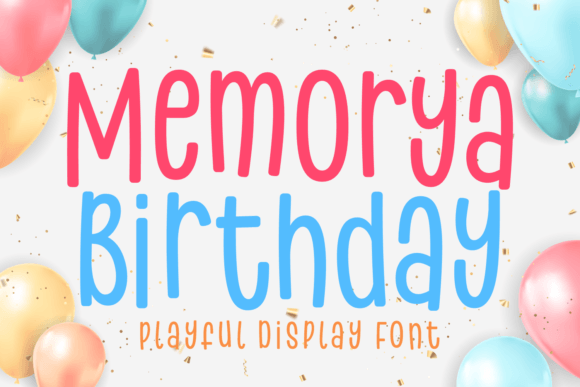
**Memorya Birthday Font: Capture the Joyous Spirit of Celebration**
Immerse yourself in the whimsical world of Memorya Birthday, a captivating display font that exudes warmth, playfulness, and an irresistible charm. This enchanting typeface, meticulously crafted by the talented Rizkky of 7NTypes, is a masterpiece of creativity, designed to infuse your projects with a touch of lighthearted delight.
With every stroke of Memorya Birthday, you'll evoke the vibrant spirit of a birthday celebration. Its bold and playful curves dance across the page, creating a visual symphony that sparks joy in the hearts of all who behold it. Whether you're designing invitations, greeting cards, social media posts, or any other project that calls for a touch of whimsy, Memorya Birthday is the perfect choice to convey your message with an infectious smile.
But beyond its playful exterior, Memorya Birthday is a versatile font that lends itself to a diverse range of design styles. Its adaptability shines through whether you're crafting elegant branding materials, creating eye-catching posters, or adding a touch of whimsy to your website. The possibilities are endless, limited only by your imagination.